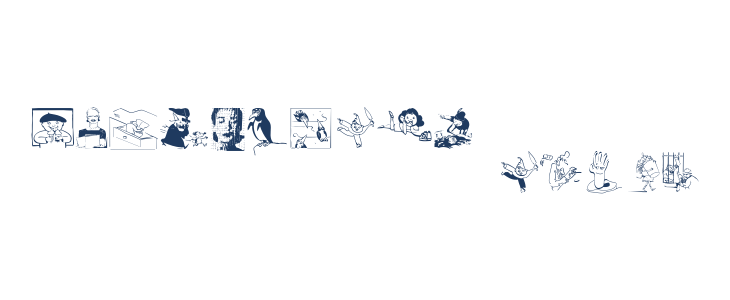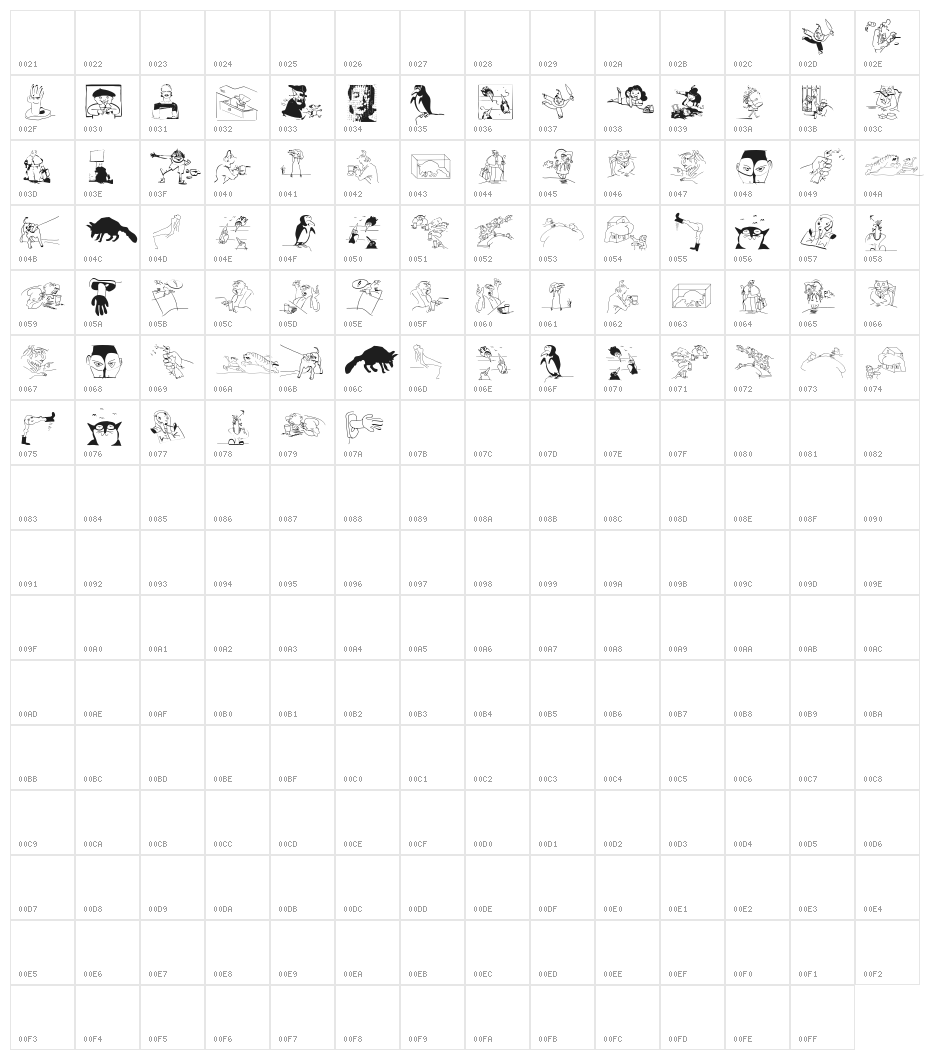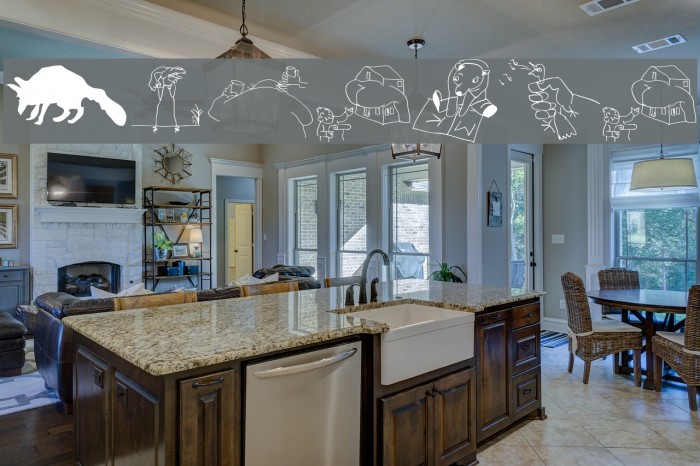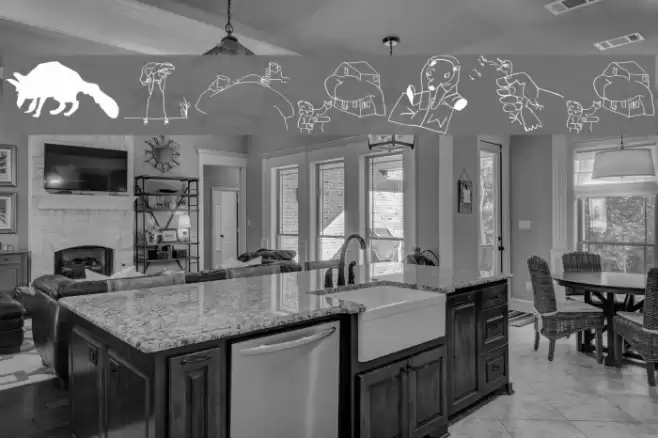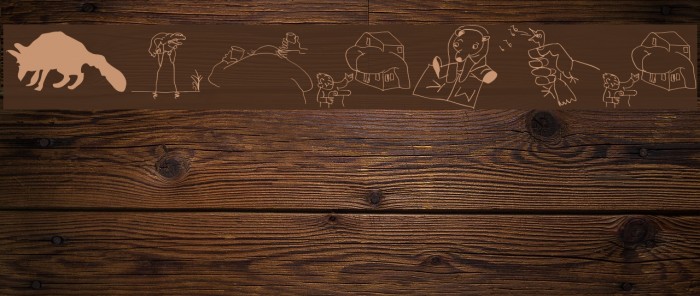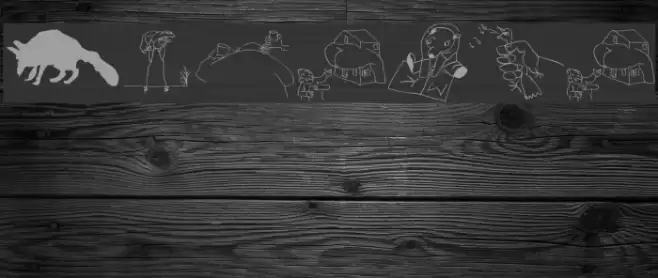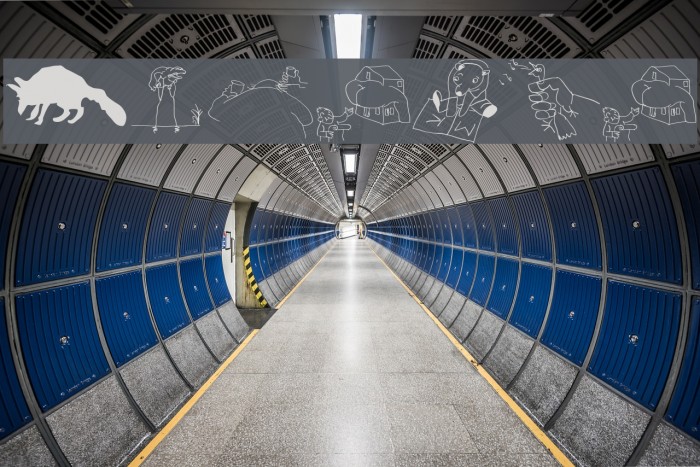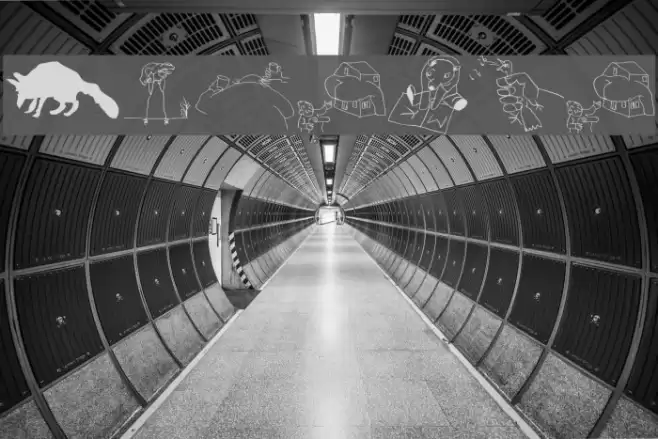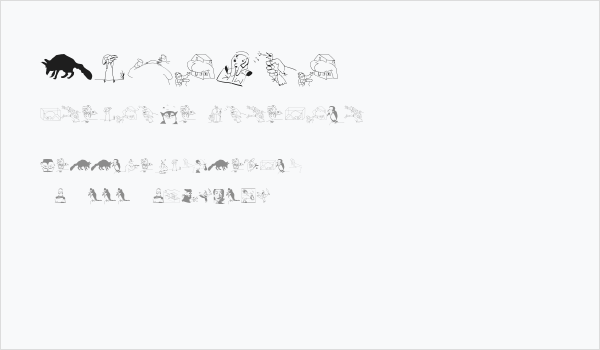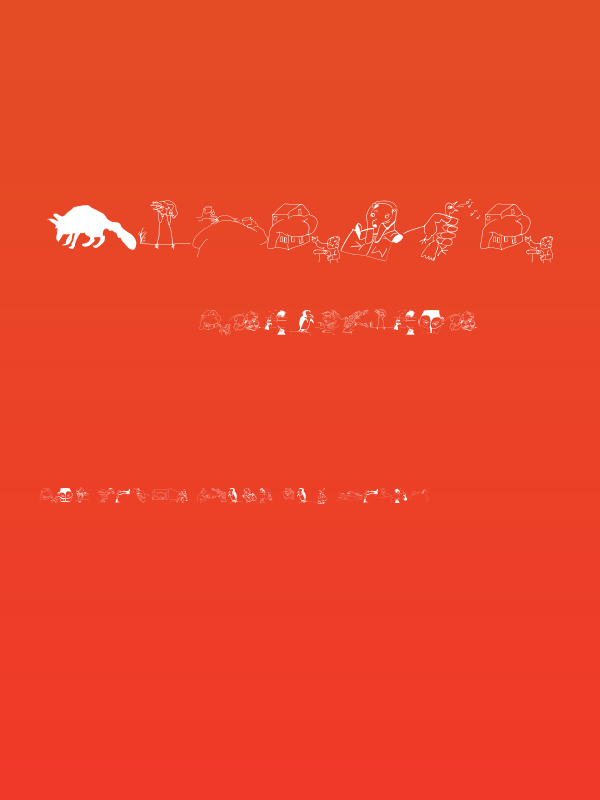
LastWit Font
LastWit Description
A highly decorative and whimsical font composed entirely of intricate cartoon illustrations, each character represented by a unique, detailed drawing rather than traditional letterforms. The style is playful, with a hand-drawn, sketch-like quality and a variety of humorous and imaginative scenes depicted within each glyph.
Overall StyleDecorative, Whimsical, Playful
Use CaseLogos, Headlines, Posters, Artistic projects
Proposed ProjectsChildrenÒ€ℒs books, comic titles, playful posters, greeting cards, creative branding, art projects.